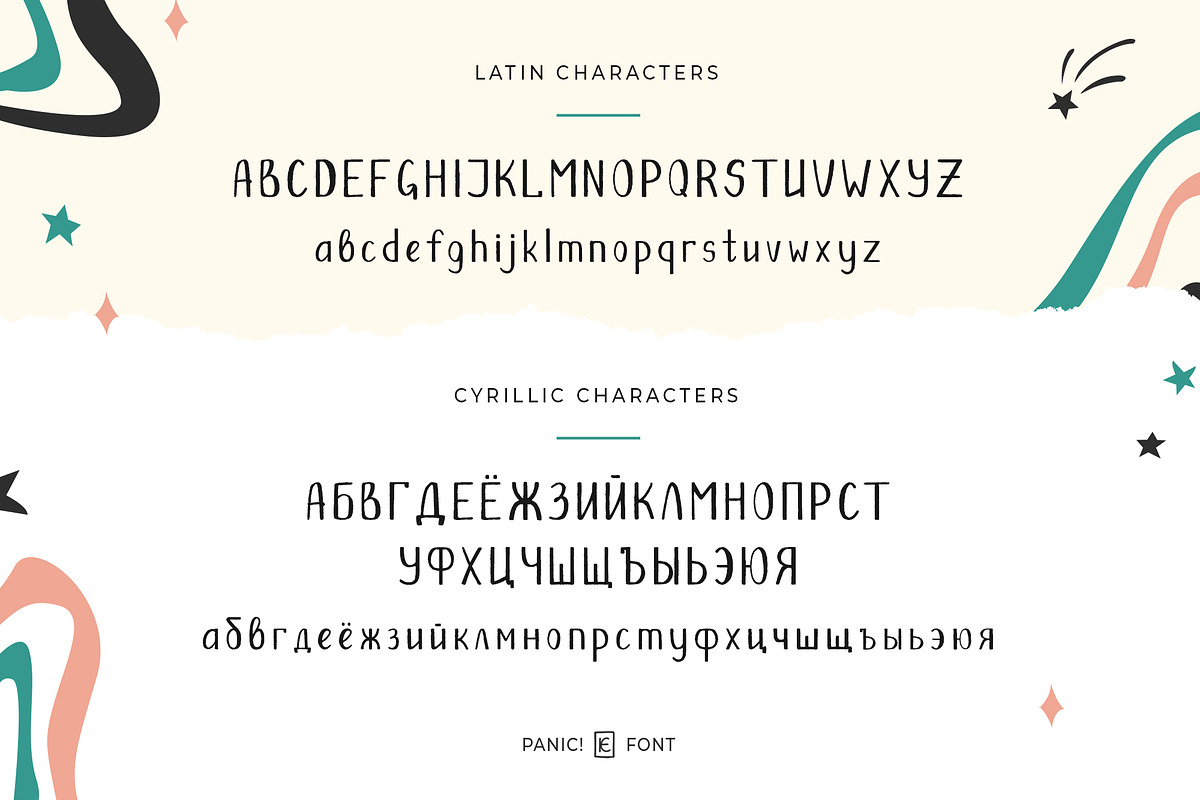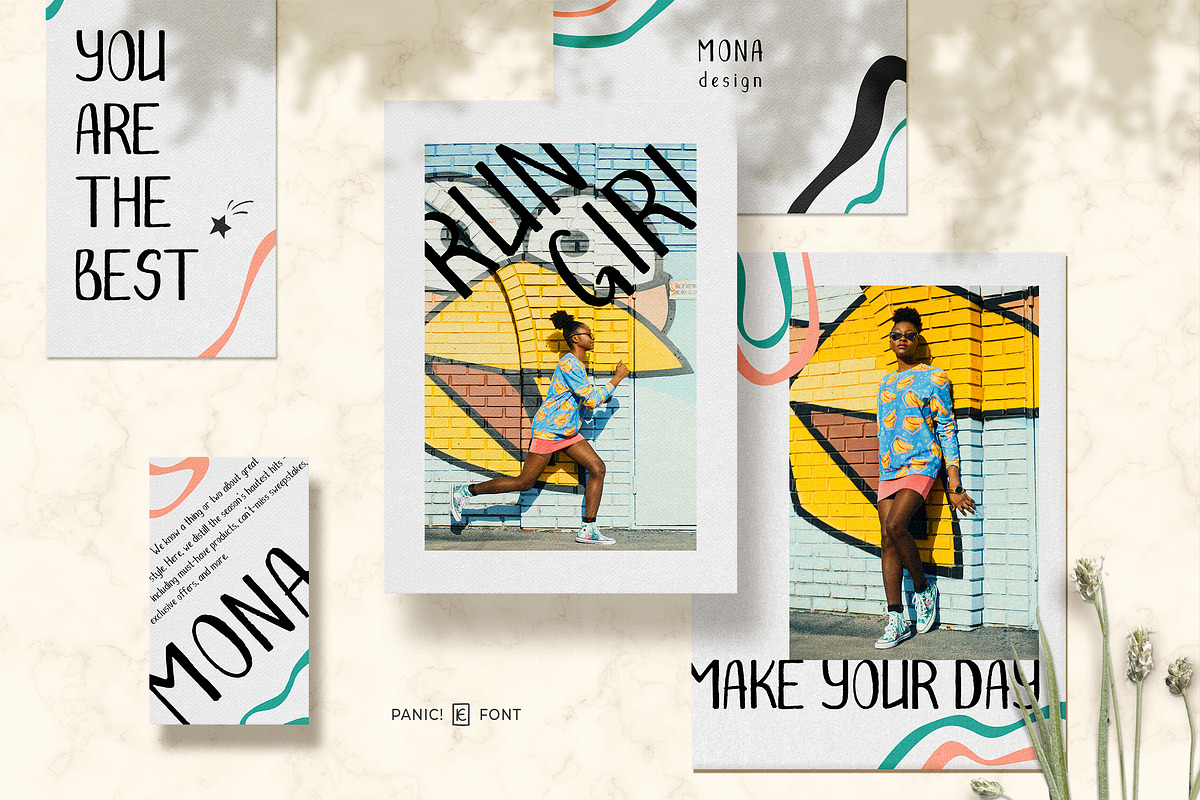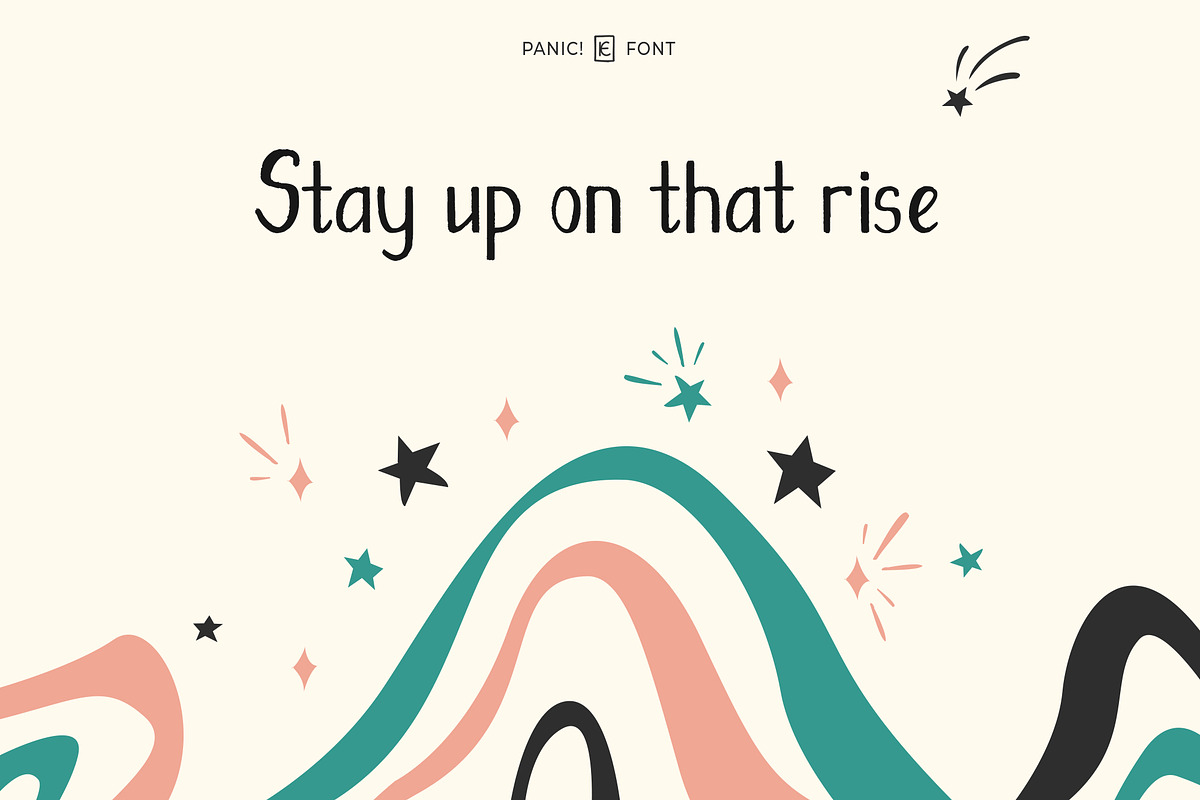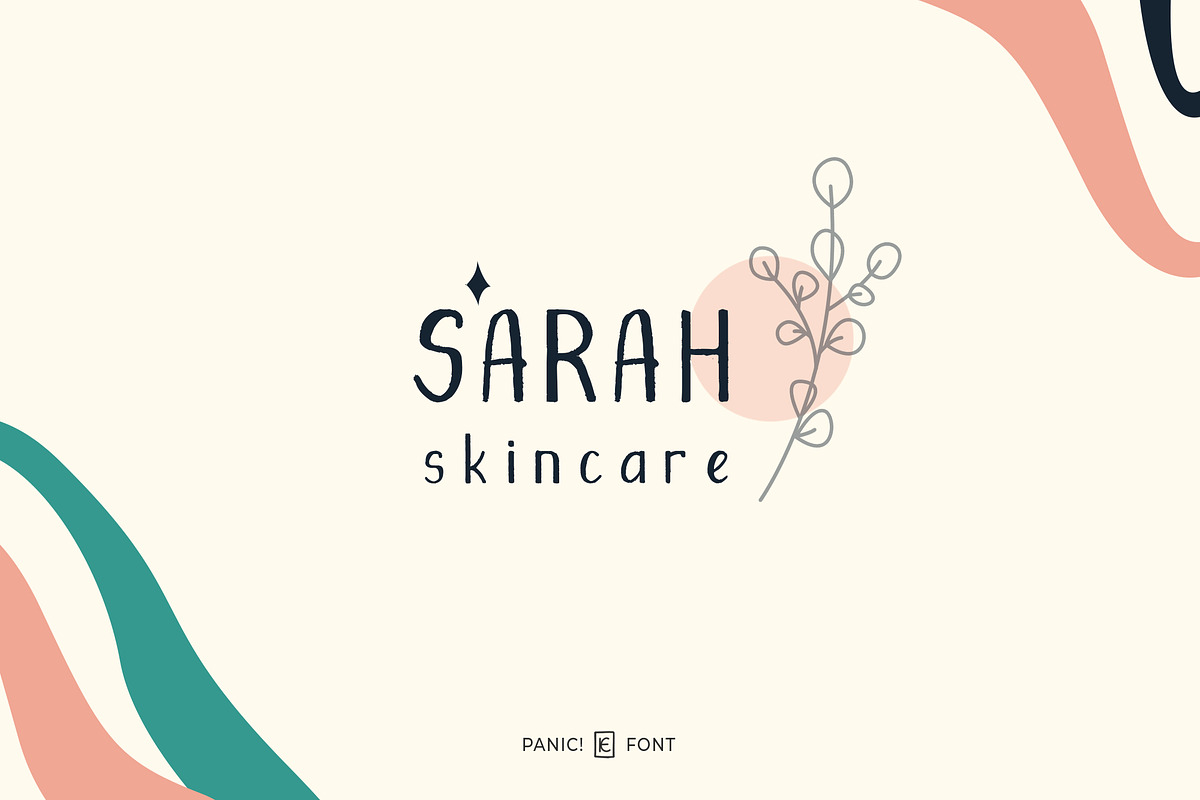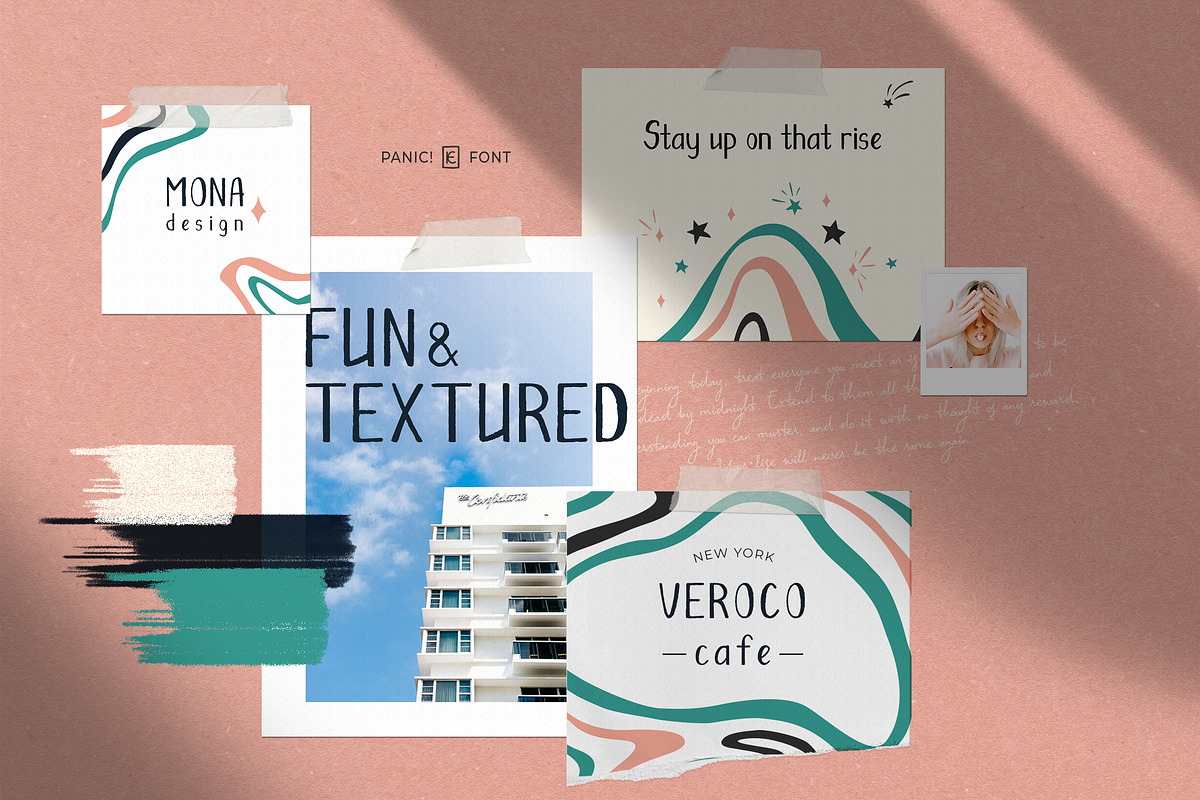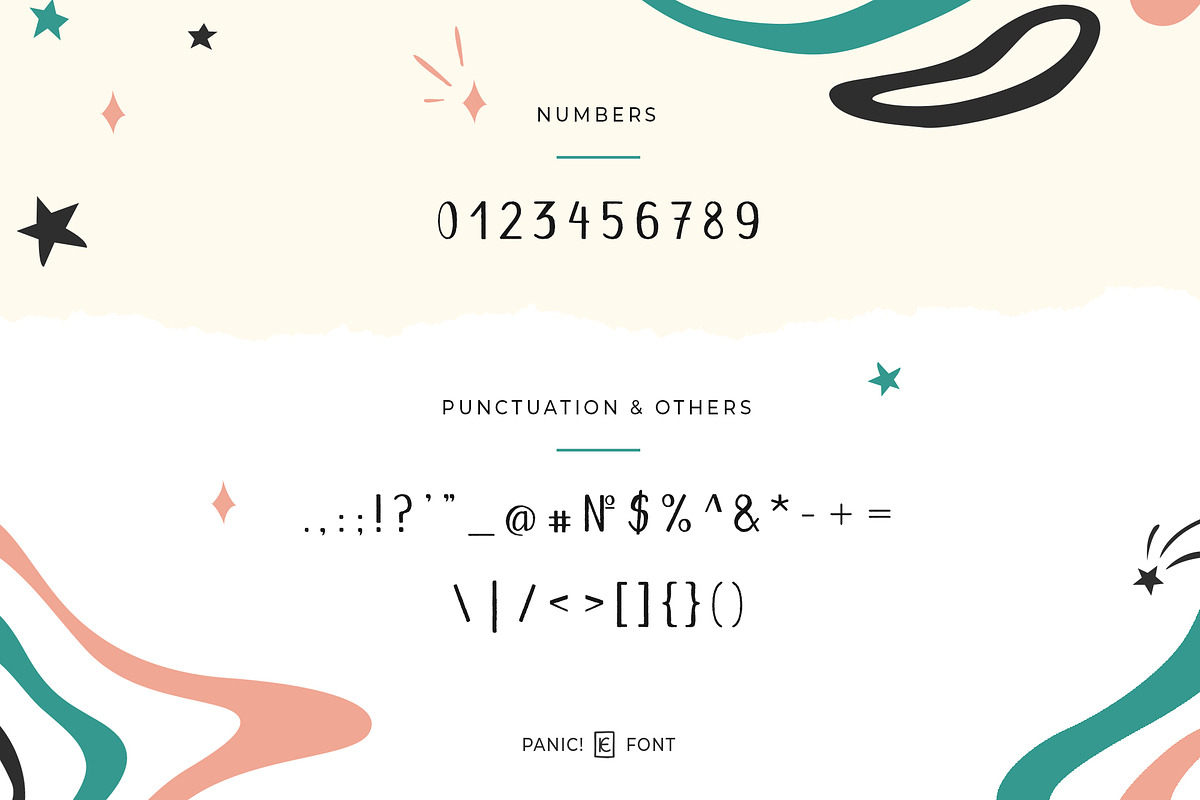
Panic! Fun Font - Latin & Cyrillic
Introducing my new font Panic! - Handwritten, Fun &Textured Font.
Panic! is a very versatile font that works great in large and small sizes. It's perfect for branding projects, Logo design, Clothing Branding, product packaging, magazine headers, or simply as a stylish text overlay to any background image.
Latin uppercase & lowercase
Punctuation & numbers
Cyrillic uppercase & lowercase
Panic!Regular - A handwritten, lower- and uppercase font which has a complete set of A-Z, a-z characters and cyrillic А-Я, а-я characters + punctuation, numerals and special characters.